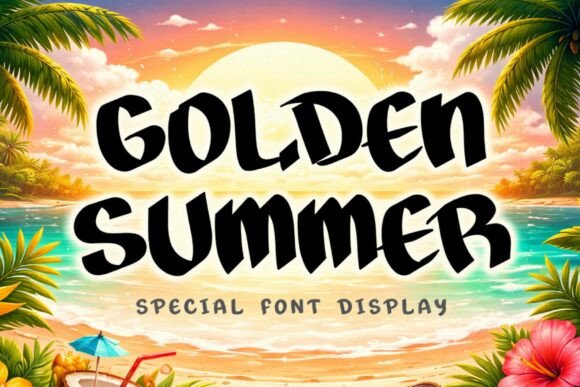
Introducing Golden Summer: The Ultimate Font for Sun-Kissed Designs
Are you ready to infuse your designs with the warmth and energy of a tropical getaway? Look no further than Golden Summer, a vibrant special display font that’s sure to transport your audience to a sun-drenched paradise. This bold, hand-cut style typeface is the perfect choice for designers and crafters seeking to create eye-catching resort branding, travel agency logos, independent surf shop apparel, and high-impact seasonal headers.
The Inspiration Behind Golden Summer
Golden Summer is more than just a font – it’s an experience. Inspired by the artisanal feel of beachside signage, this font features high-contrast strokes and rhythmic, organic edges that evoke the carefree spirit of a summer vacation. With its sun-drenched personality and “vacation-ready” aesthetic, Golden Summer is the perfect way to add a touch of tropical flair to your designs.
What Sets Golden Summer Apart
So, what makes Golden Summer stand out from the crowd? Here are just a few key features that set this font apart:
- High-contrast strokes: Golden Summer’s bold, hand-cut style typeface features high-contrast strokes that give it a dynamic, eye-catching appearance.
- Rhythmic, organic edges: The font’s rhythmic, organic edges mimic the artisanal feel of beachside signage, adding a touch of warmth and personality to your designs.
- Sun-drenched personality: Golden Summer’s sun-drenched personality is infectious, making it the perfect choice for designs that need to evoke the feeling of a tropical getaway.
Golden Summer is a versatile font that’s perfect for a wide range of design projects, including:
- Resort branding: Create a lasting impression with Golden Summer’s bold, eye-catching font, perfect for resort logos, signage, and marketing materials.
- Travel agency logos: Help your clients stand out from the crowd with Golden Summer’s unique, vacation-ready aesthetic.
- Independent surf shop apparel: Add a touch of tropical flair to your surf shop’s apparel with Golden Summer’s bold, hand-cut style typeface.
- High-impact seasonal headers: Make your seasonal headers pop with Golden Summer’s vibrant, sun-drenched personality.
Tips for Using Golden Summer in Your Designs
Here are a few tips for getting the most out of Golden Summer in your designs:
- Pair with complementary fonts: Golden Summer’s bold, eye-catching font is perfect for headlines and titles. Pair it with complementary fonts to create a cohesive, visually appealing design.
- Experiment with colors: Golden Summer’s sun-drenched personality is perfect for bright, tropical colors. Experiment with different color palettes to find the perfect combination for your design.
- Don’t be afraid to get creative: Golden Summer’s unique, hand-cut style typeface is perfect for adding a touch of personality to your designs. Don’t be afraid to get creative and try new things!
Golden Summer is a vibrant special display font that’s sure to bring a touch of tropical flair to your designs. With its bold, hand-cut style typeface, high-contrast strokes, and rhythmic, organic edges, this font is the perfect choice for designers and crafters seeking to create eye-catching resort branding, travel agency logos, independent surf shop apparel, and high-impact seasonal headers. So why wait? Chase the horizon with Golden Summer and start creating sun-kissed designs that will leave your audience feeling like they’re on vacation.